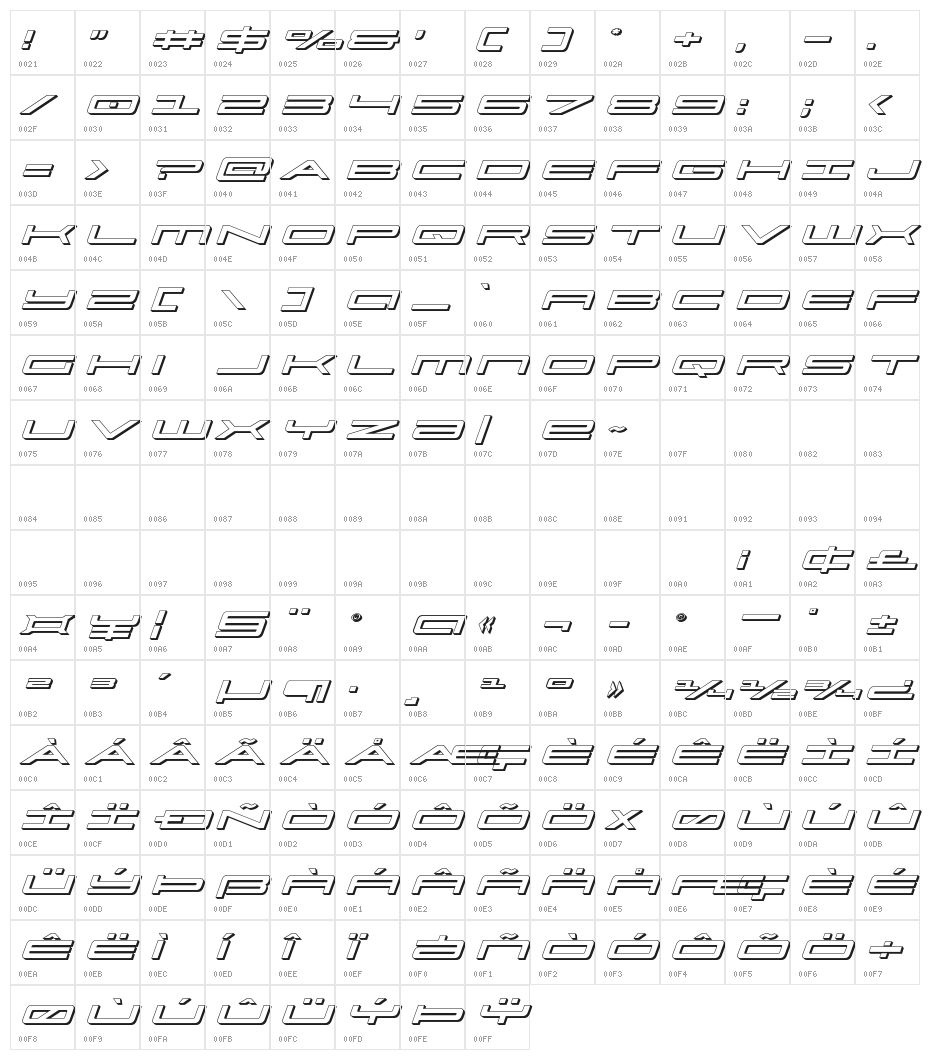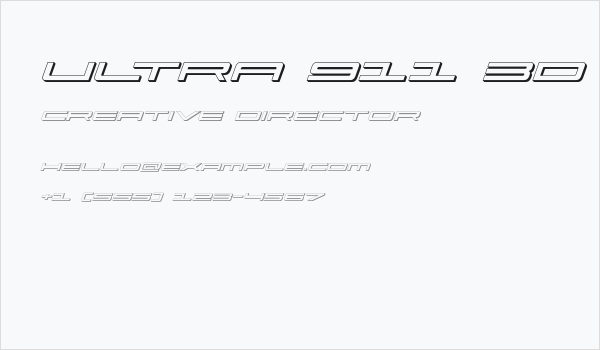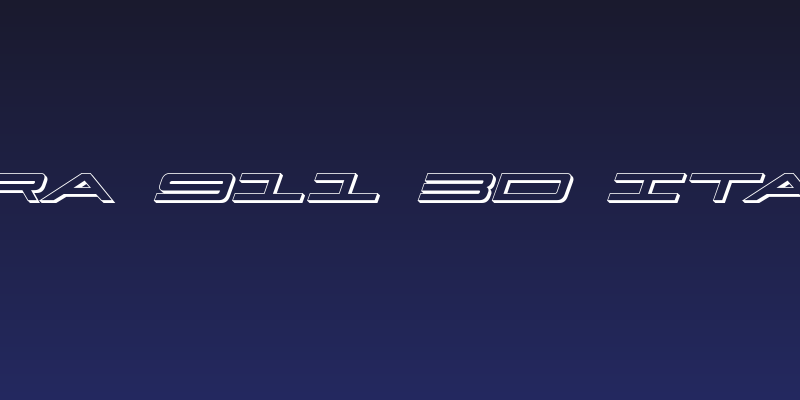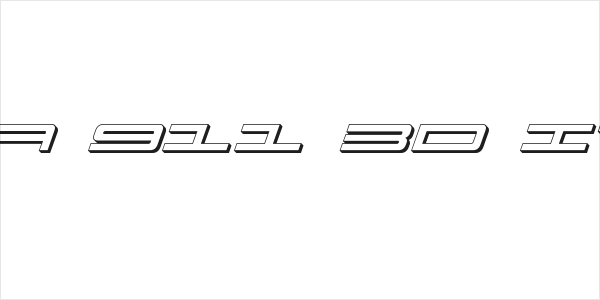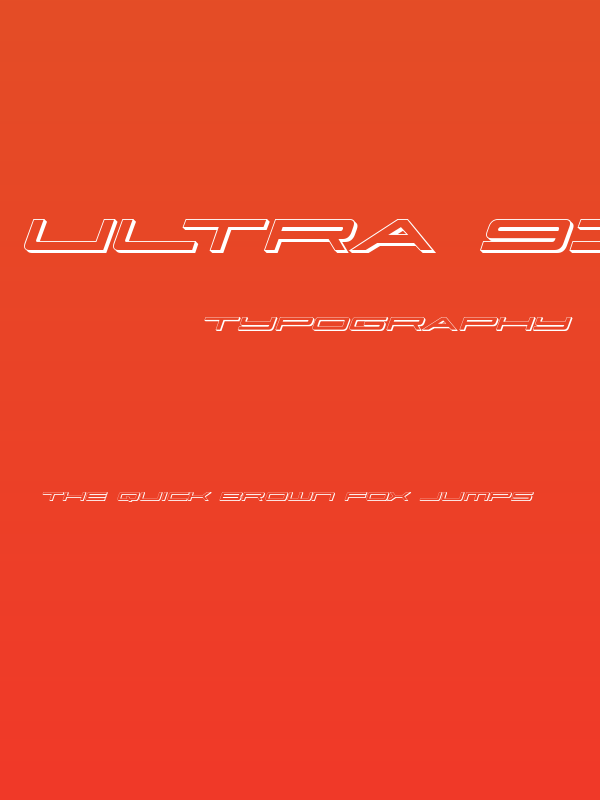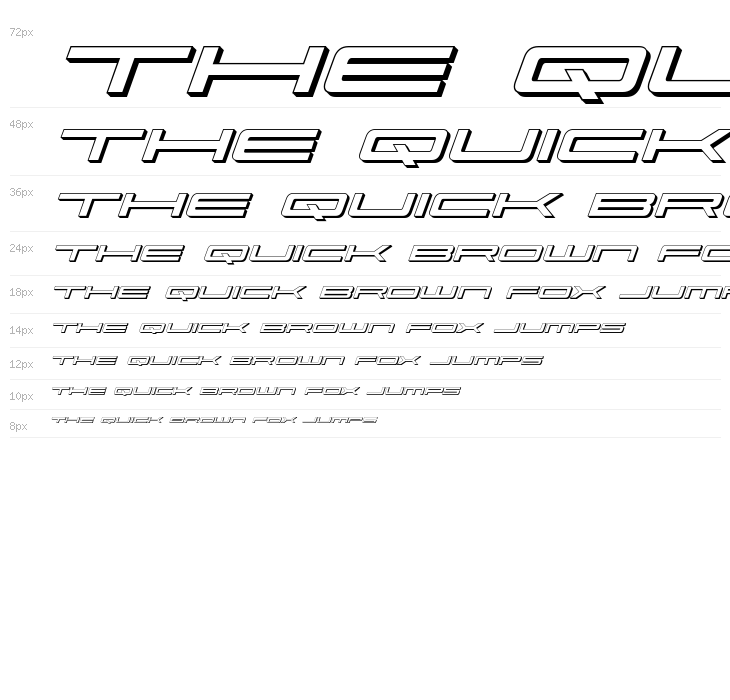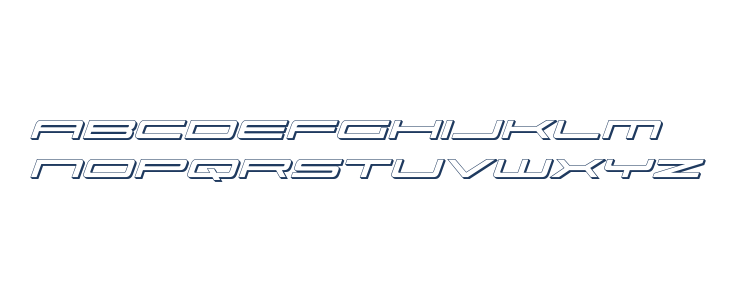
Ultra 911 3D Italic Font
Ultra 911 3D Italic Description
This font features a futuristic and dynamic design with a 3D effect that gives it a sense of depth and movement. The characters are italicized, adding to the sleek and modern aesthetic. Each letter is outlined, creating a bold and striking appearance that stands out. The font maintains a consistent width across all characters, providing a uniform look. Its geometric shapes and sharp angles contribute to its high-tech and contemporary style, making it ideal for projects that require a cutting-edge and innovative feel.